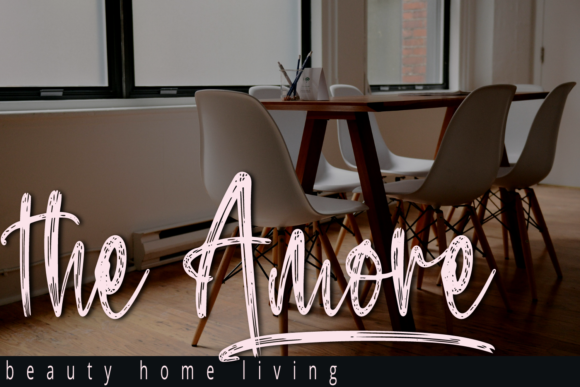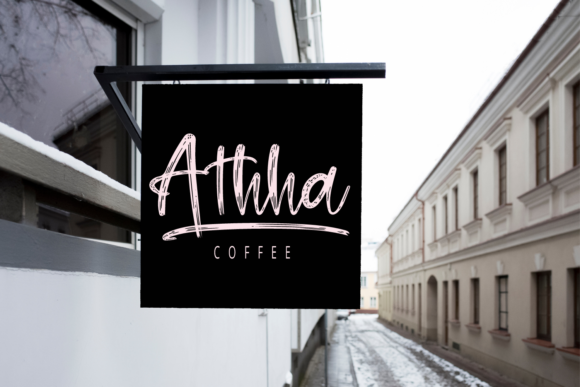
Arizona Font
db-ku.com - Script & Handwritten -- Arizona is rough textured and casual looking handwritten font. Whether you are using it for quotes, titles, brand names, book covers, posters, or just any creation that requires a delicate vibe, this font is a great choice.